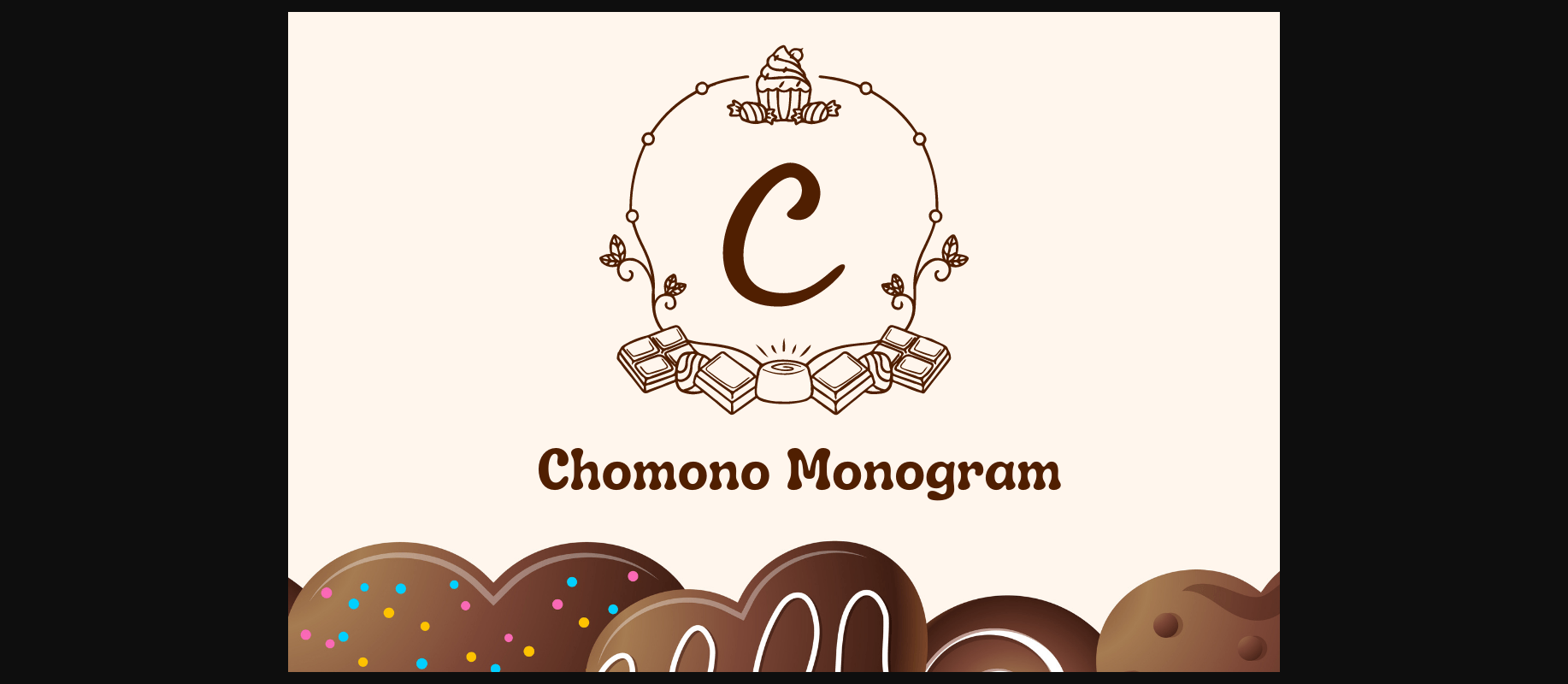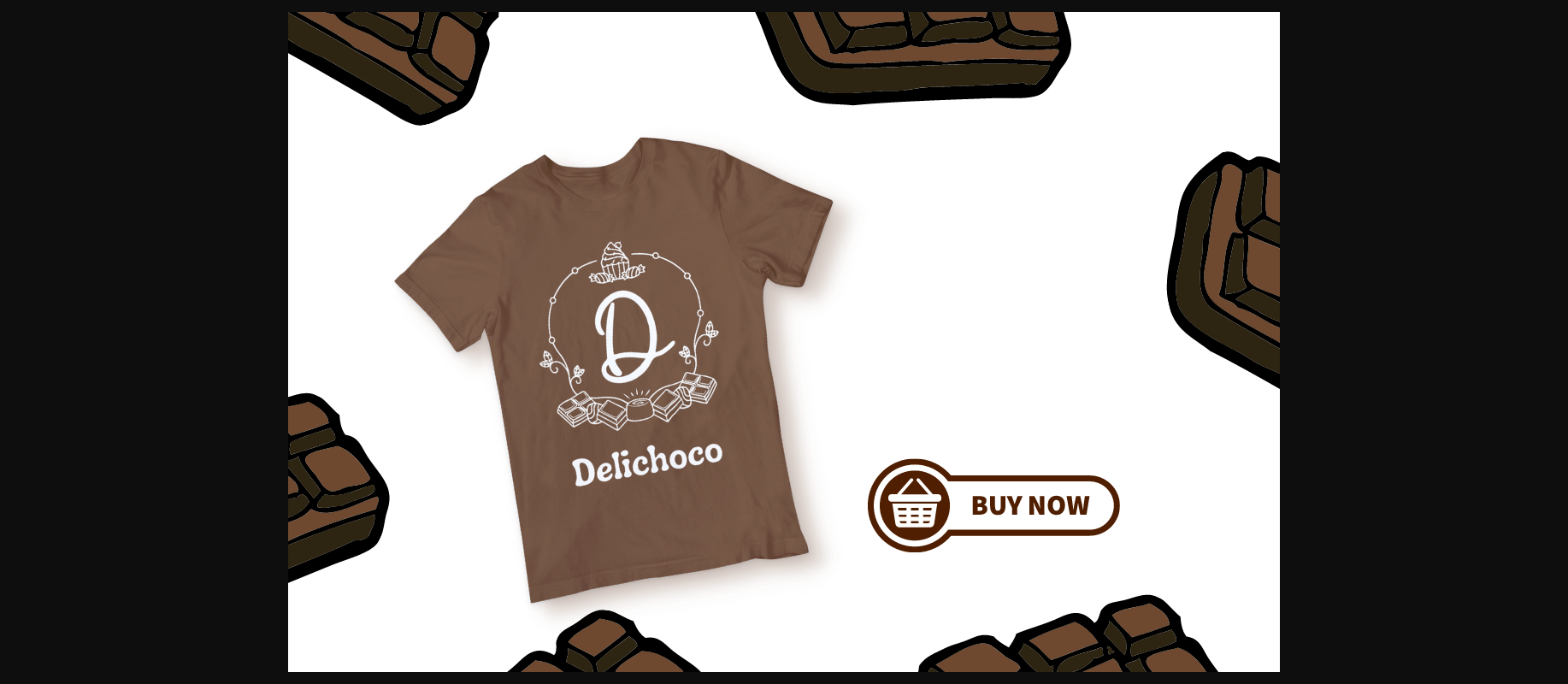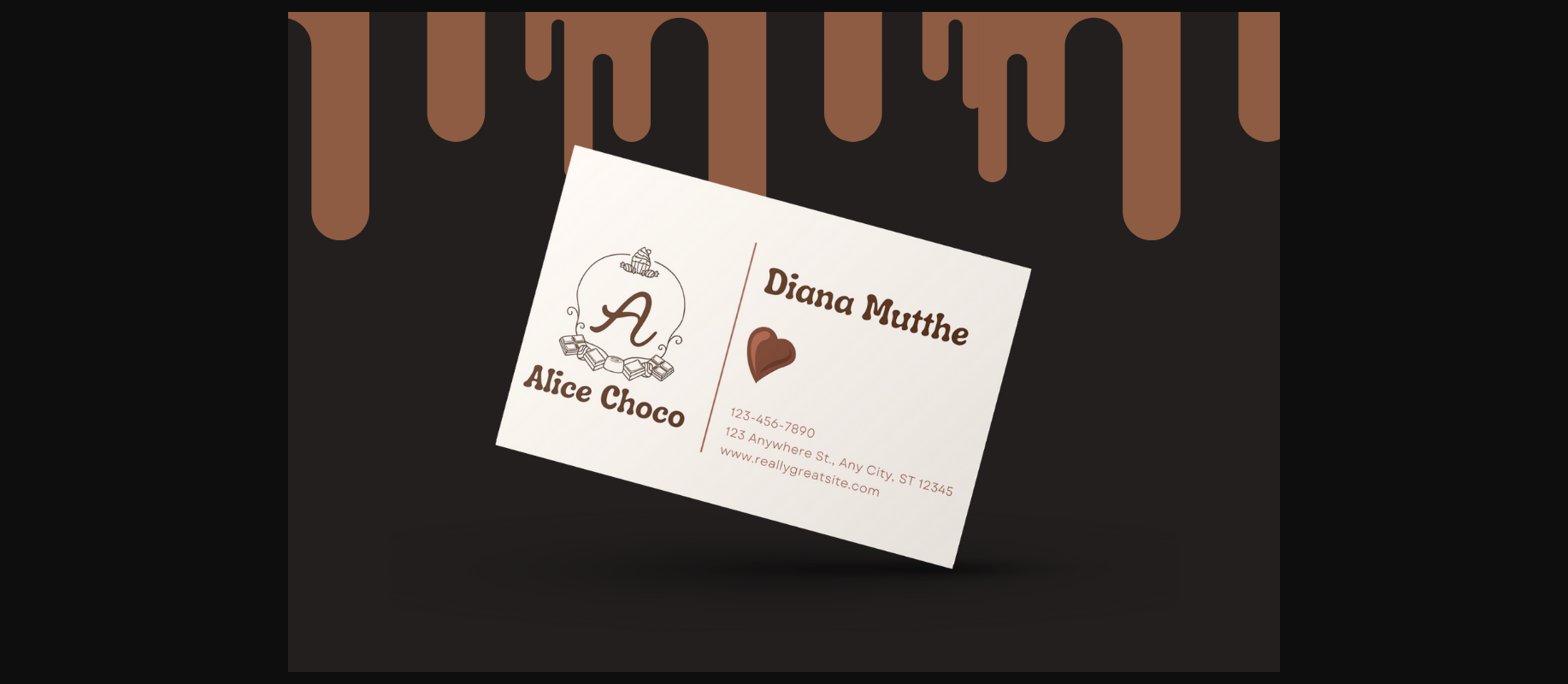
About Chomono Monogram Font
Chomono Monogram is a Chocolate & candy Themed monogram font. Fall in love with cute and lovely designs for your sweet special design, business designs, logos, branding, social media posts, and wedding cards.